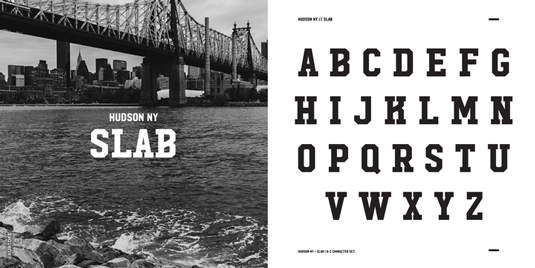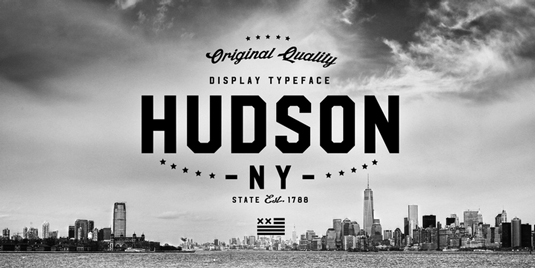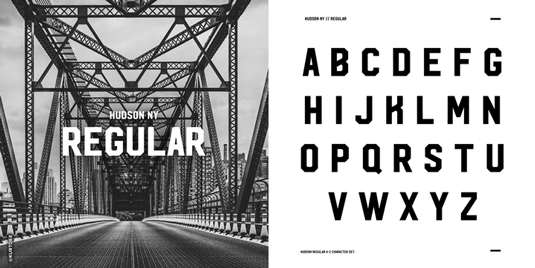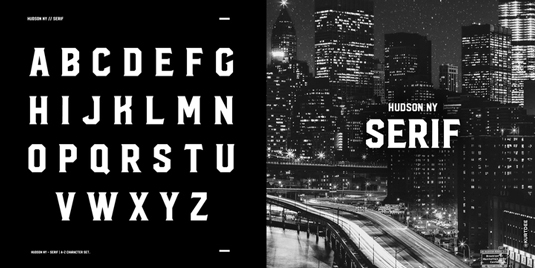
Font of the day: Hudson NY
Each day of the week we showcase one of our favourite fonts – today it's Hudson NY by Andrew Footit.
Hudson NY by Andrew Footit
Designer Andrew Footit is the man behind today's typeface of choice, Hudson NY. "Hudson NY is a display font that gives you strong and bold typography with three different styles," he comments on MyFonts.
"Hudson NY is an adaptation and progression of Roper Font, and, like Roper font, it comes in regular and a press versions, giving the user some cool options when creating artwork. The golden thread that ties this family together is its American sports and college styling, it gives Hudson NY an authentic look but at the same time there is a modern approach to the character set."